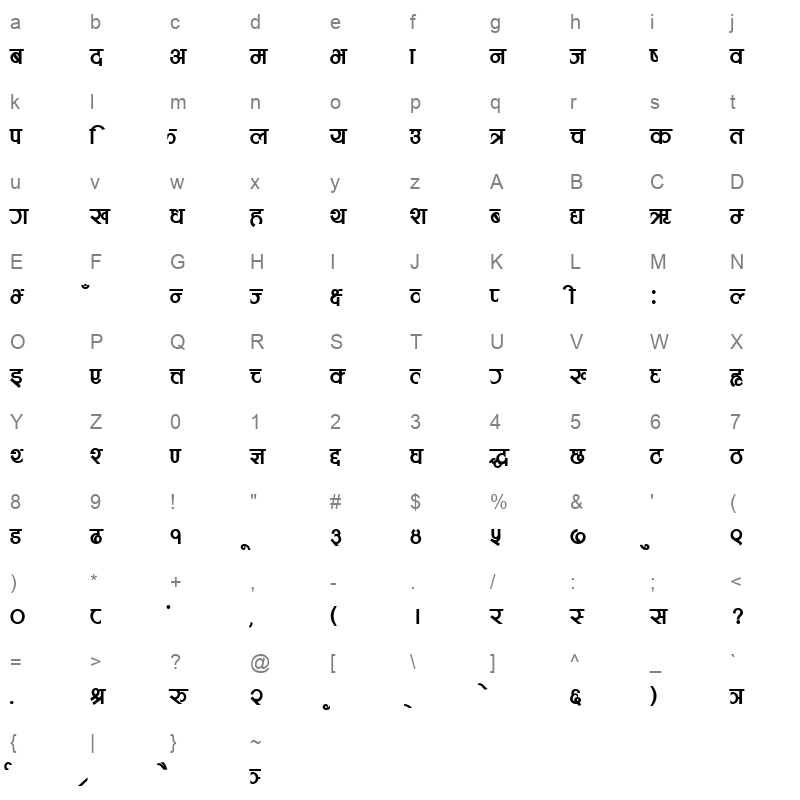
Aakriti Bold marathi Font
Preview of Aakriti Bold
Aakriti Bold Font Information
Font Name Aakriti Bold
Font Style Bold
Weight 700
Number of Glyphs 141
Aakriti Bold Character Map